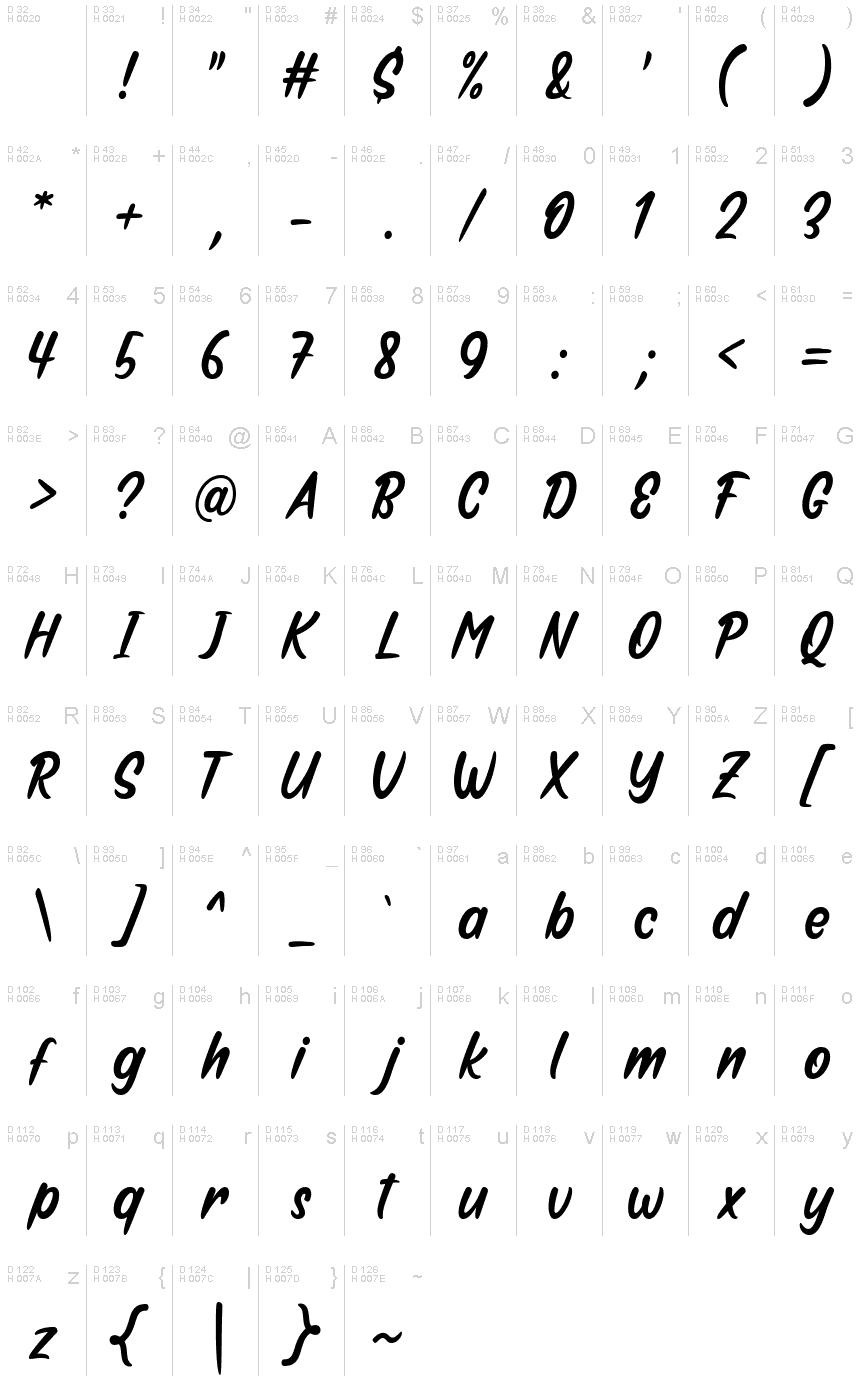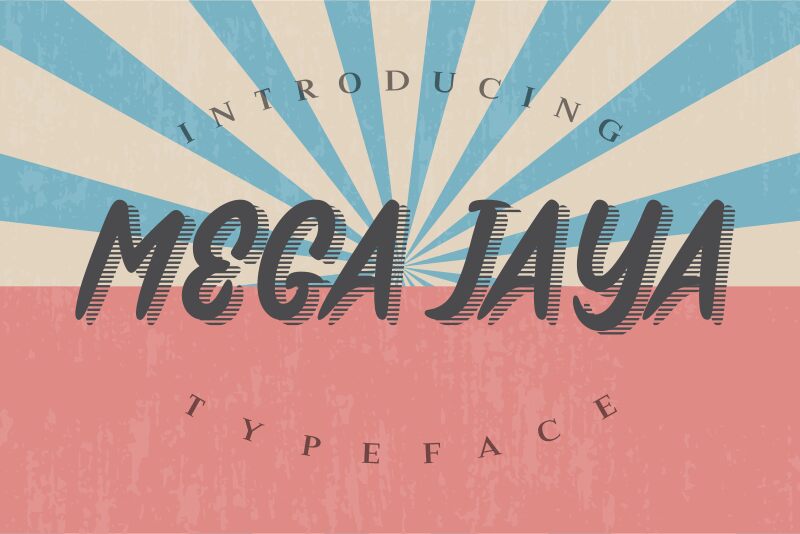
Mega Jaya
Mega Jaya is a charming handwritten font designed by 7NTypes. Its semi-condensed width makes it perfect for projects requiring a touch of elegance and personality, without sacrificing readability. Mega Jaya's playful yet refined style will add character to your wedding invitations, greeting cards, social media posts, and branding materials. Whether you're creating a vintage-inspired design or something more contemporary, Mega Jaya's versatility ensures it will suit any project. With its unique character set and smooth strokes, this semi-bold font is sure to impress your audience and leave a lasting impression.